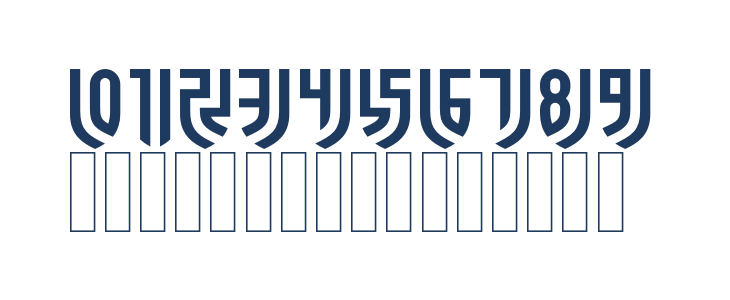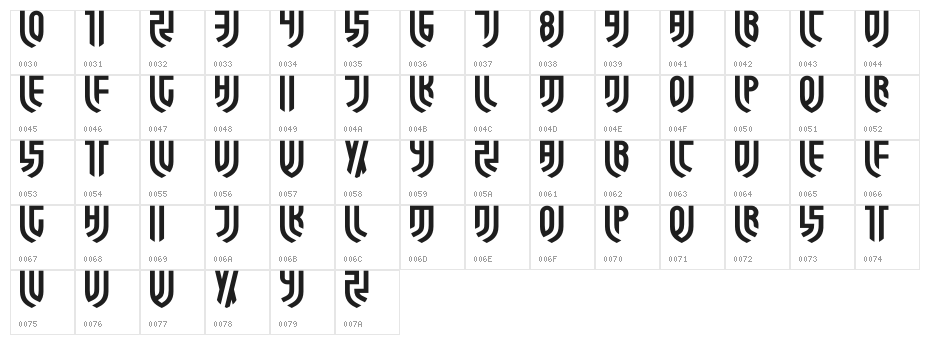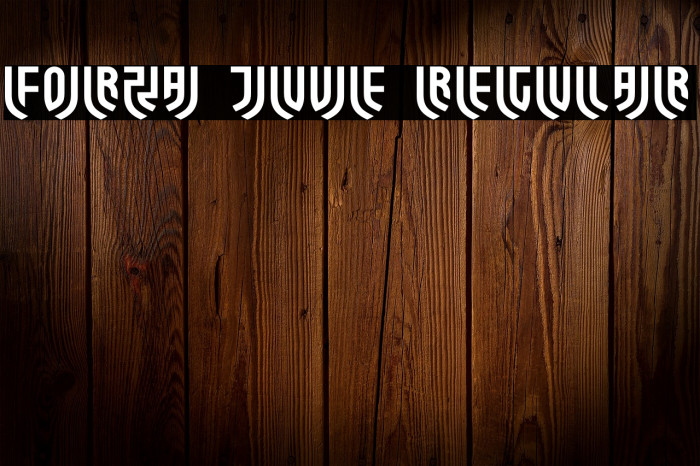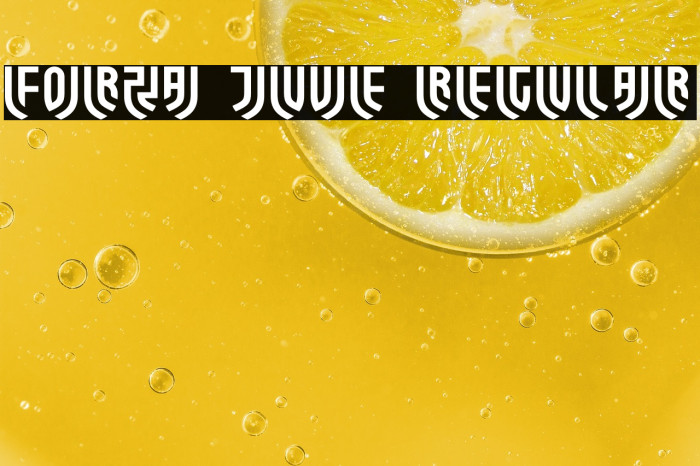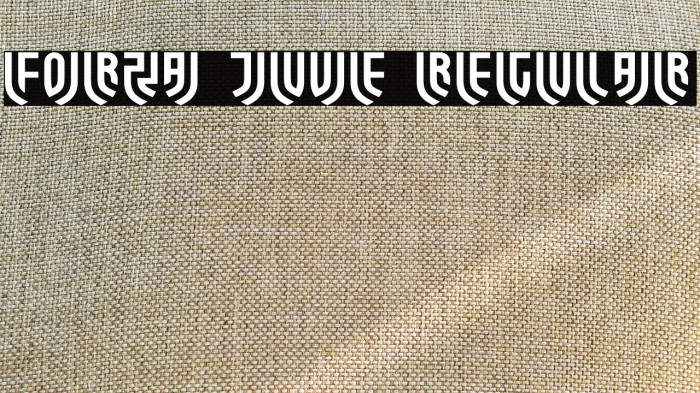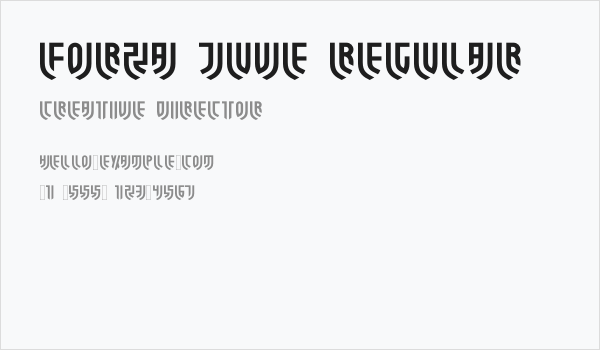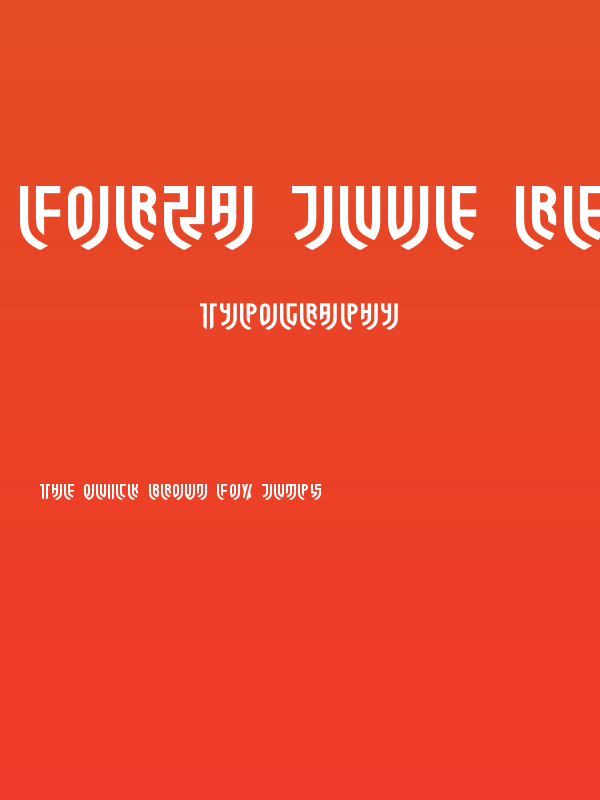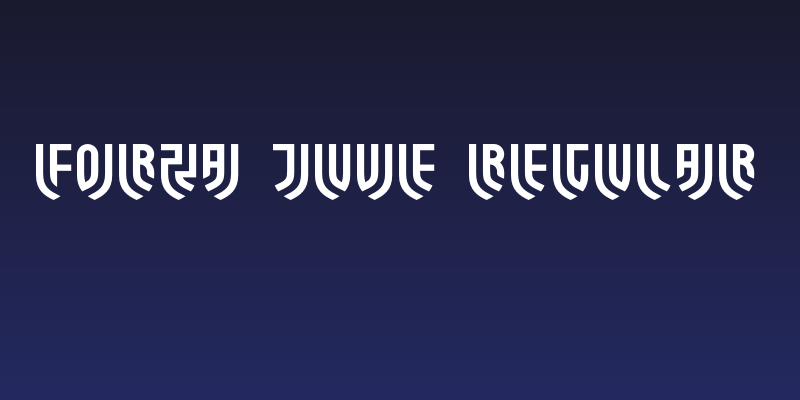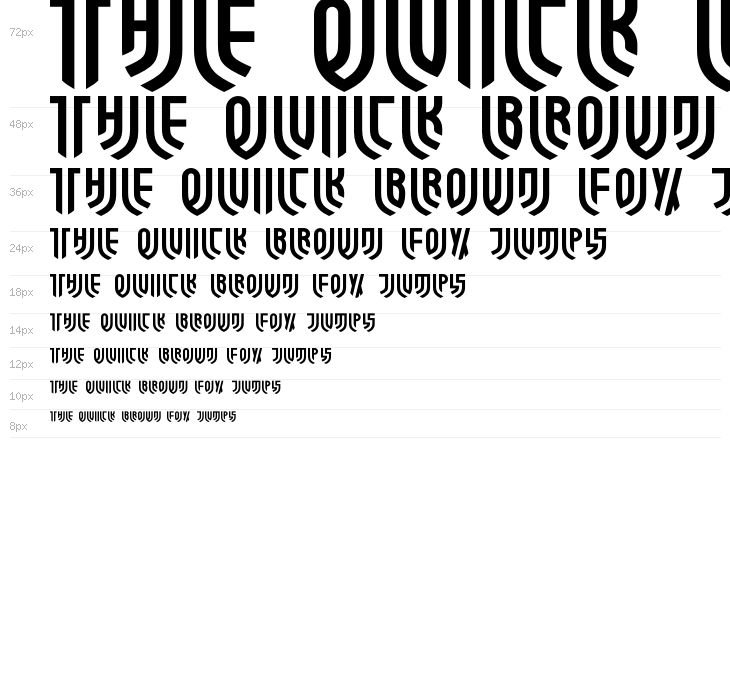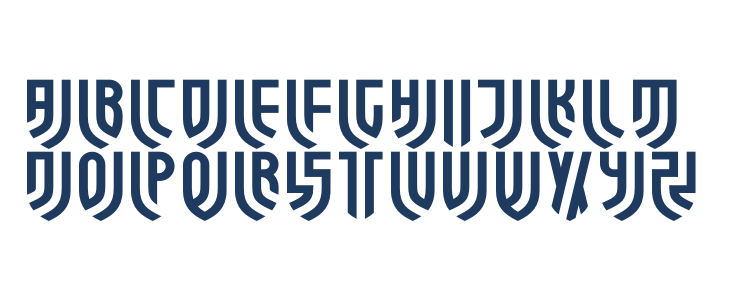
Forza Juve Regular Font
This font features a bold and striking design with a strong geometric influence. The characters are constructed with thick, angular lines that create a sense of power and modernity. The uppercase letters are particularly prominent, with a uniform height and a consistent width that gives the font a cohesive look. The numbers follow the same bold style, ensuring clarity and impact. The absence of lowercase letters and special characters suggests a focus on simplicity and directness. This font is ideal for making a strong visual statement.
| Proposed Projects | Ideal for sports branding, posters, and headlines where a strong, impactful presence is needed. |